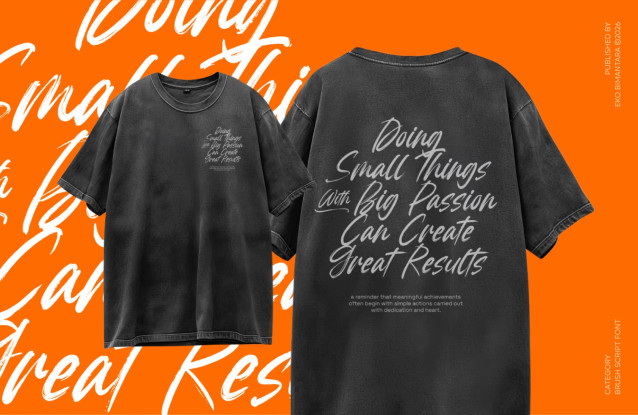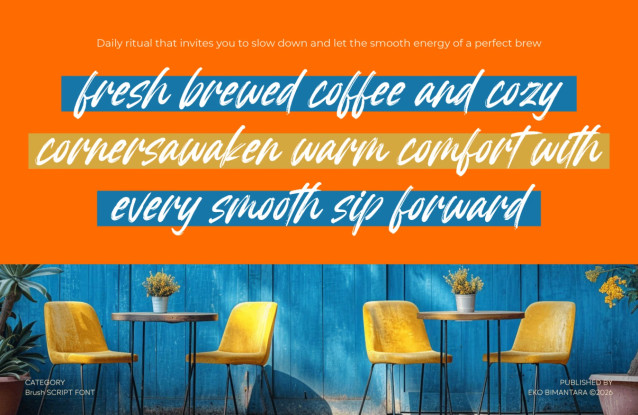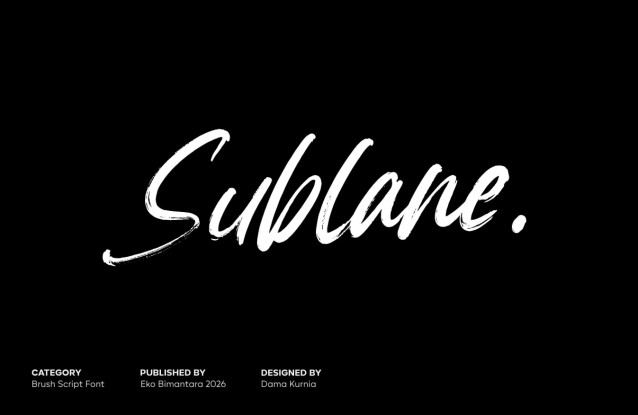
Sublane Font
Sublane Font is a dynamic brush script typeface that captures the raw energy and expressive freedom of hand-painted lettering. Defined by its textured strokes, natural pressure variations, and slightly rugged edges, it conveys an authentic, handcrafted feel with a contemporary edge. The fluid letterforms and casual rhythm create a sense of movement and spontaneity, making it especially effective for branding, social media graphics, posters, and creative packaging.
Sublane performs best in display settings, where its bold personality and artistic imperfections bring a striking, human touch to modern visual compositions.